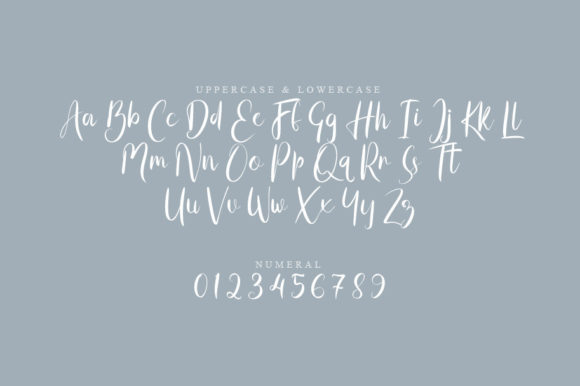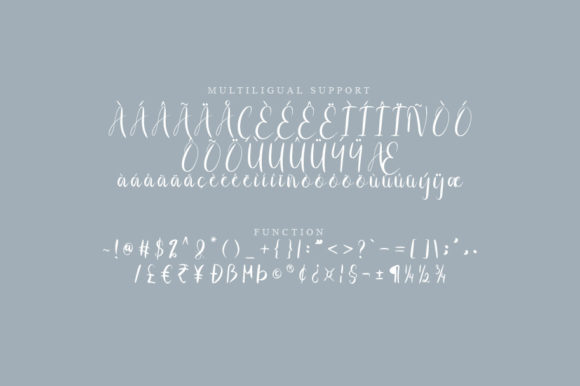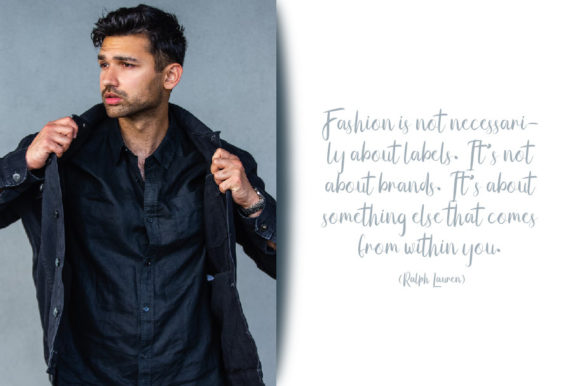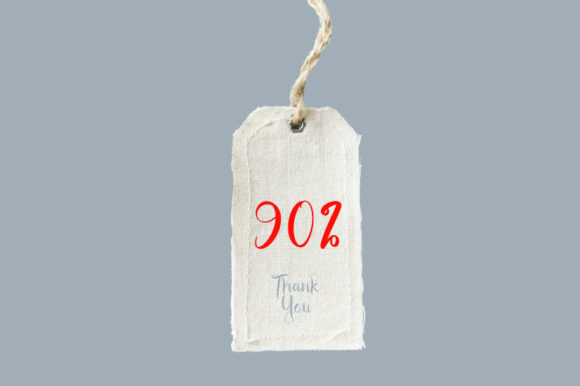
Introducing Atids Script Font: Elevate Your Designs with a Timeless Handwritten Touch
In the world of typography, few fonts manage to capture the essence of elegance and charm as effectively as the Atids Script Font. This lovely and timeless handwritten font has been making waves among designers and crafters alike, and for good reason. Atids Script is not just a font; it’s a tool that can transform your designs, adding a unique touch that sets them apart from the rest. Whether you’re looking to create eye-catching logos, enhance your branding, or craft compelling quotes, Atids Script is the perfect choice.
The Unique Charm of Atids Script
What sets Atids Script apart is its inherently human touch. Every letter in this font has been carefully crafted to exude a sense of warmth and personality. Unlike more conventional fonts that can sometimes feel cold or impersonal, Atids Script brings a level of intimacy and connection to your designs. This is particularly beneficial for projects where you want to convey a sense of authenticity or tell a story through your typography.
One of the key advantages of Atids Script is its versatility. This font can be used across a wide range of projects, from digital applications like website headers and social media graphics to print materials such as brochures, posters, and business cards. Its legibility and aesthetic appeal make it suitable for both headlines and body text, allowing you to maintain consistency in your design language.
Crafting Eye-Catching Logos and Branding
For businesses and entrepreneurs looking to create a memorable brand identity, Atids Script offers endless possibilities. Its unique letterforms can help your logo stand out in a crowded market, making your brand more recognizable and engaging. Moreover, the font’s elegance and sophistication can elevate your brand’s image, conveying a sense of quality and professionalism.
Bringing Quotes to Life
Atids Script also shines when it comes to showcasing quotes. The font’s beautiful and expressive letters add an emotional depth to the words, making them more impactful and inspiring. Whether you’re designing motivational posters, social media posts, or any other form of visual content featuring quotes, Atids Script can help you convey your message with style and grace.
Why Choose Atids Script?
- Unique and Beautiful Touch: Each letter in Atids Script has been designed with a unique and beautiful touch, ensuring your designs are always distinctive.
- Elegance and Sophistication: The font exudes elegance and sophistication, making it perfect for high-end branding and designs.
- Versatility: Use Atids Script across various projects, from digital content to print materials, without compromising on style or legibility.
- Easy to Read: Despite its decorative nature, Atids Script remains highly legible, making it suitable for both headings and longer texts.
Atids Script Font is more than just a typeface; it’s a design companion that can elevate your creative projects to new heights. Its timeless appeal, combined with its versatility and unique charm, makes it an invaluable asset for designers and crafters. Whether you’re aiming to create stunning logos, enhance your brand’s visual identity, or simply add a touch of elegance to your designs, Atids Script is an excellent choice. Embrace the beauty of handwritten typography and let Atids Script bring your designs to life.